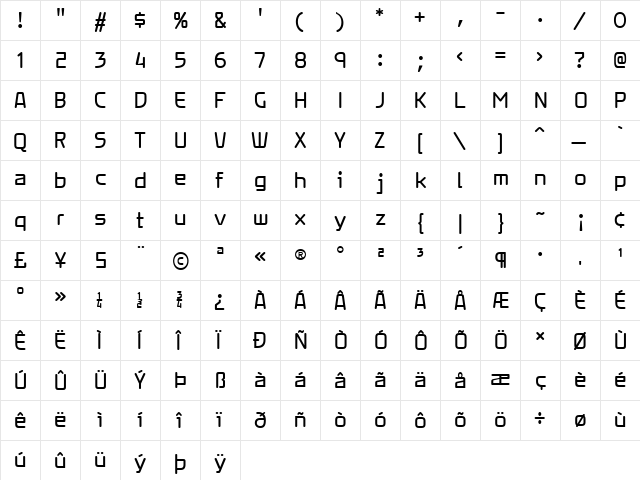
Xenara Regular
Design Context for Xenara Typeface
Xenara takes a measured approach to typography — its balanced proportions and neutral character make it a reliable workhorse for both digital and print work.